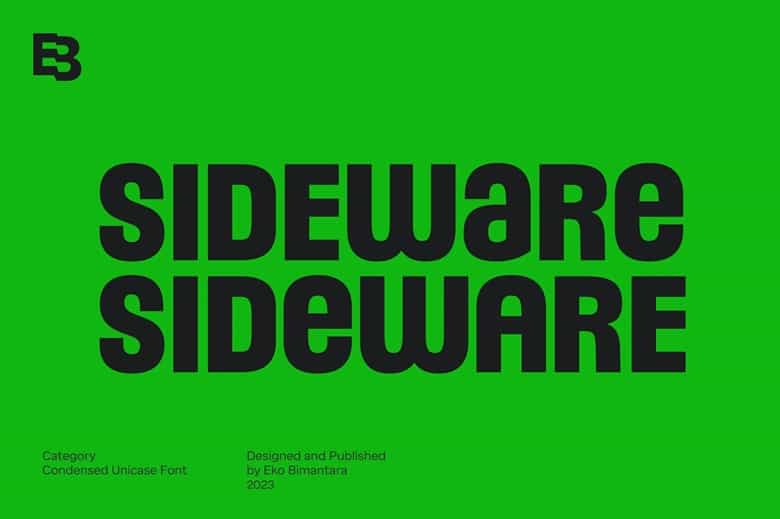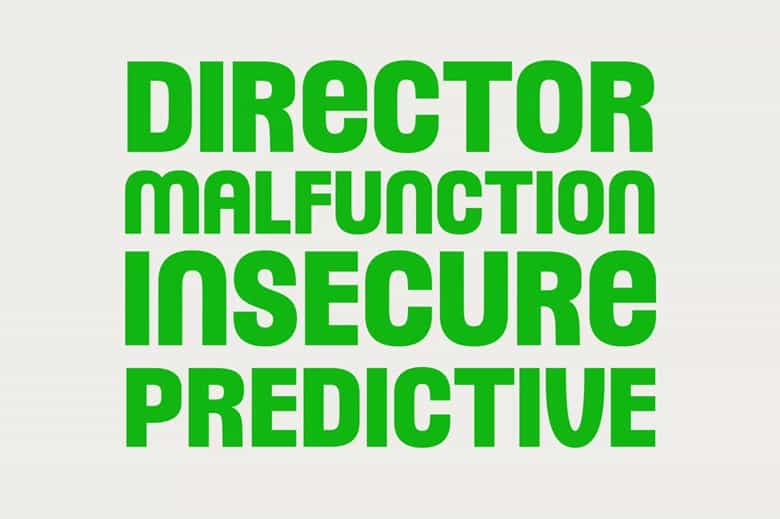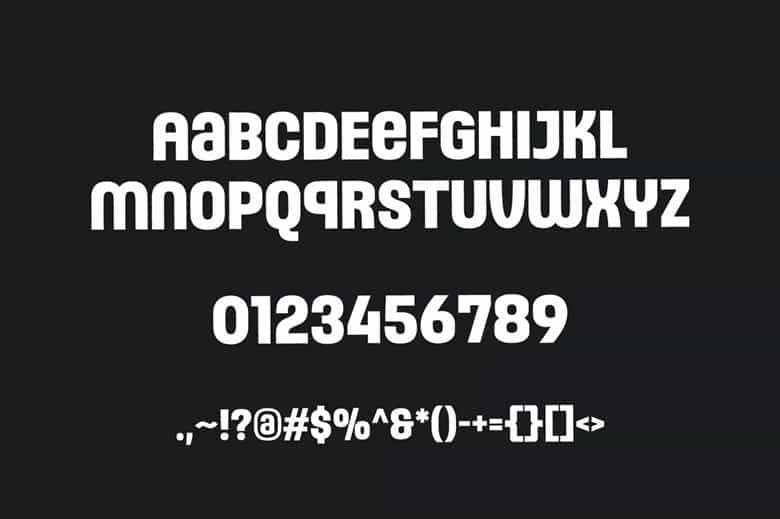
Sideware is a contemporary and fresh condensed display sans serif typeface with unconventional uncase style. By its compact and versatile design it will bring a modern and simple look for your projects.